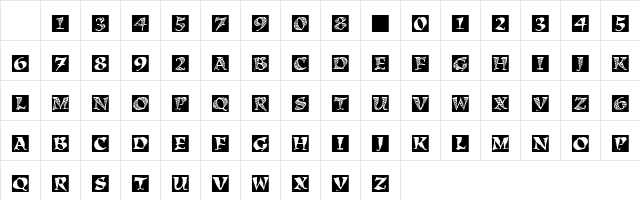
Complete KigaliBlock Roman glyph index. Displaying only characters natively supported by KigaliBlock Roman font.
KigaliBlock is a composed and adaptable typeface that performs quietly and consistently across a wide range of design contexts.